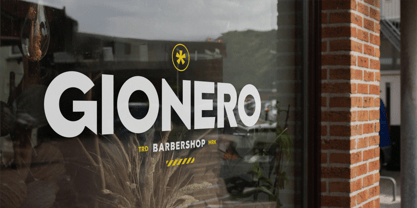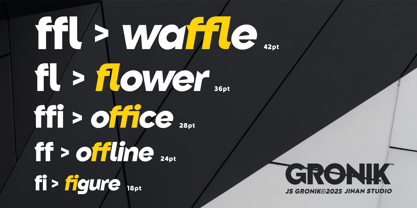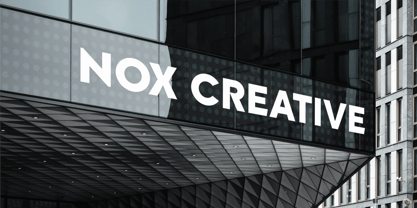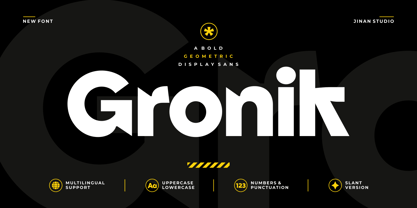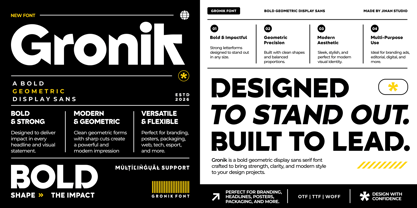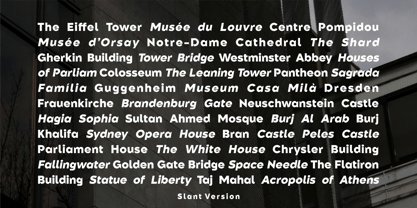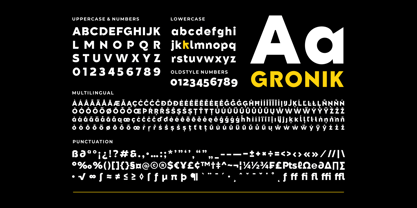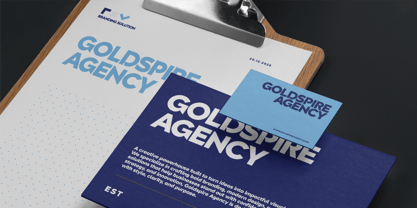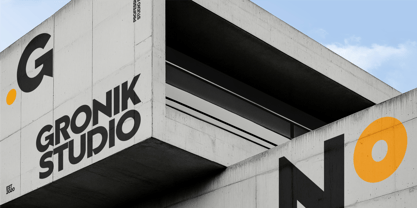
Gronik
Gronik is a bold geometric display sans serif designed to make a strong visual impact. With its clean curves, chunky letterforms, and modern industrial feel, this font is perfect for branding, posters, headlines, packaging, sports themes, tech visuals, and futuristic layouts.
The balanced geometric construction gives Gronik a powerful yet versatile personality — sleek enough for modern editorial design while still playful and eye-catching for creative projects. Featuring uppercase, lowercase, multilingual support, numbers, punctuation, and a stylish slant version, Gronik delivers flexibility for both bold titles and standout visual identities.
Features
• A set of uppercase and lowercase glyphs
• Number, symbol, and punctuation
• Multilingual Support
• Slant Version